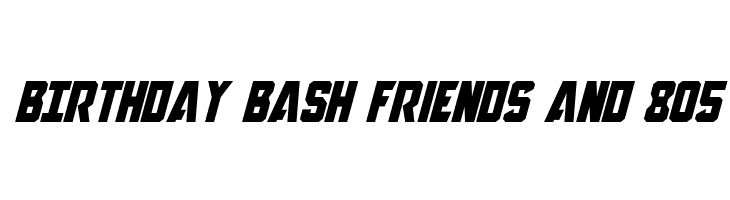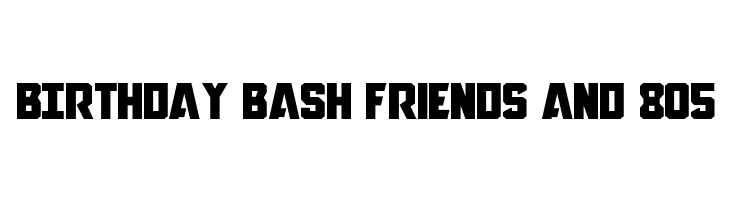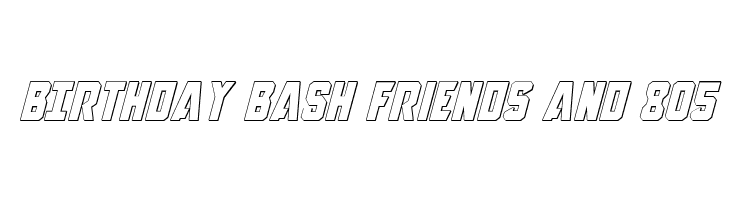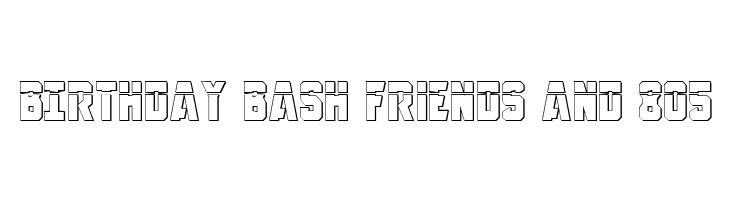
Commonwealth Expanded Font
- Font: Commonwealth Expanded
A bold, italic font with a dynamic and angular design, perfect for impactful visuals.
A bold, italic, and dynamic font with sharp angles and a modern style.
A bold, geometric font with sharp edges and an expanded width.
A bold, 3D outlined font with a geometric and angular style.
A bold, 3D italic font with a futuristic and dynamic style.
A bold, outlined font with a modern, geometric style.
A bold, 3D geometric font with a futuristic and industrial style.
A bold, italic, and expanded font with a futuristic and angular design.